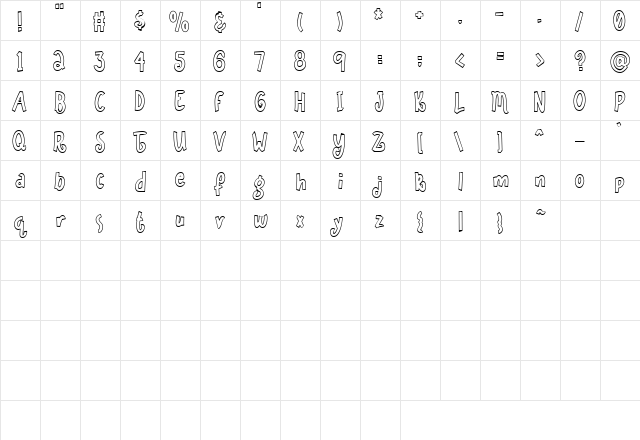
Scrap Color Me 5 Regular
Design Context for Scrap Color Me 5 Typeface
Scrap Color Me 5 is a composed and adaptable typeface that performs quietly and consistently across a wide range of design contexts.